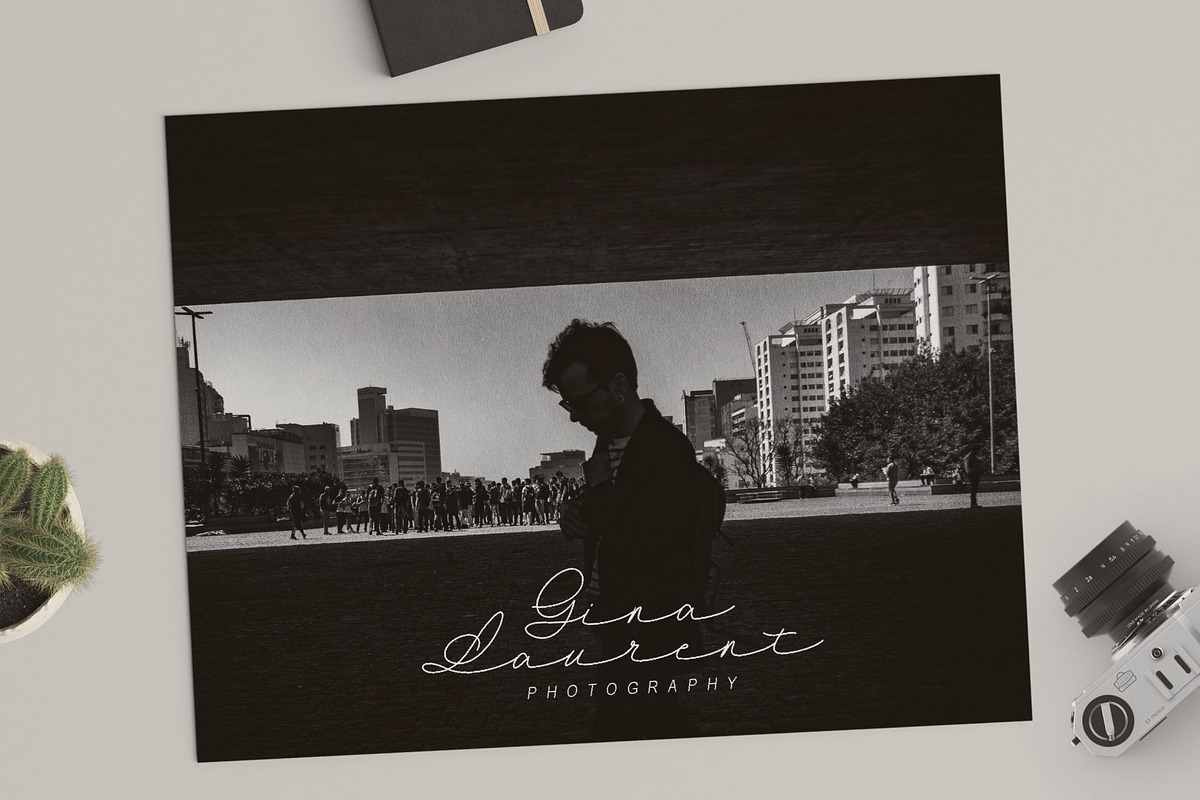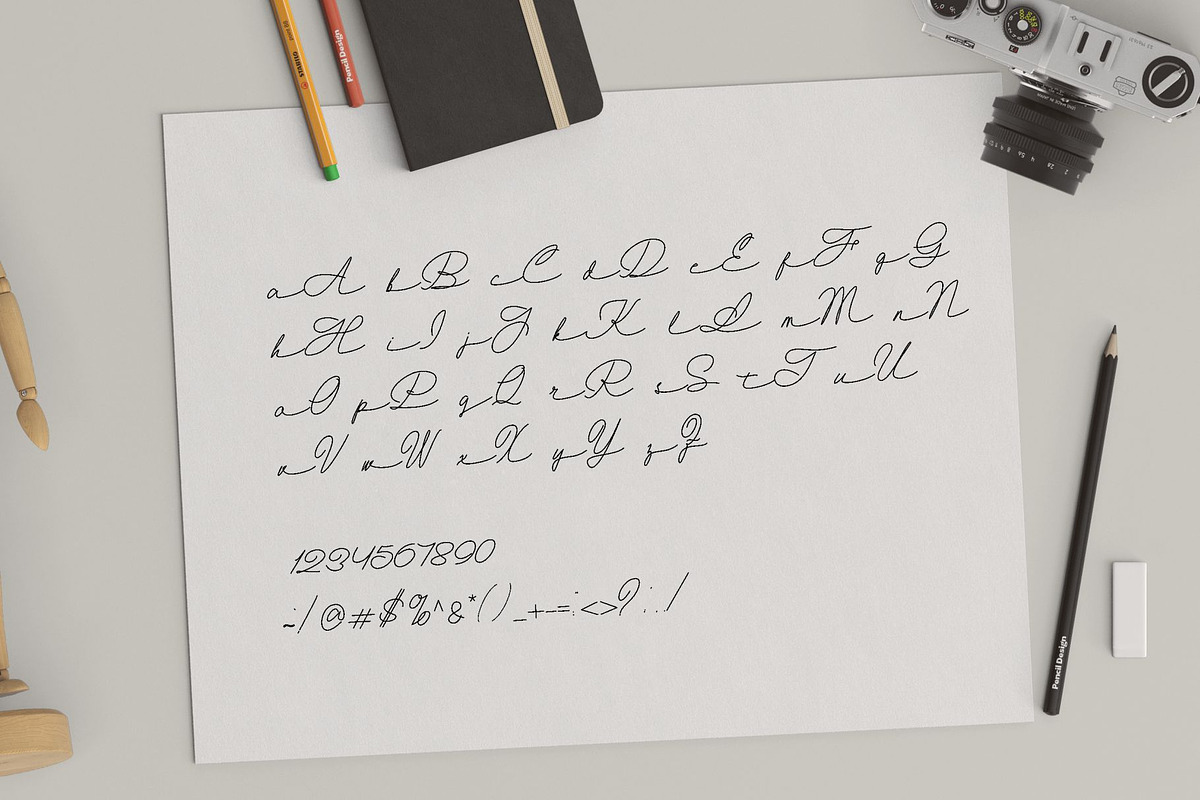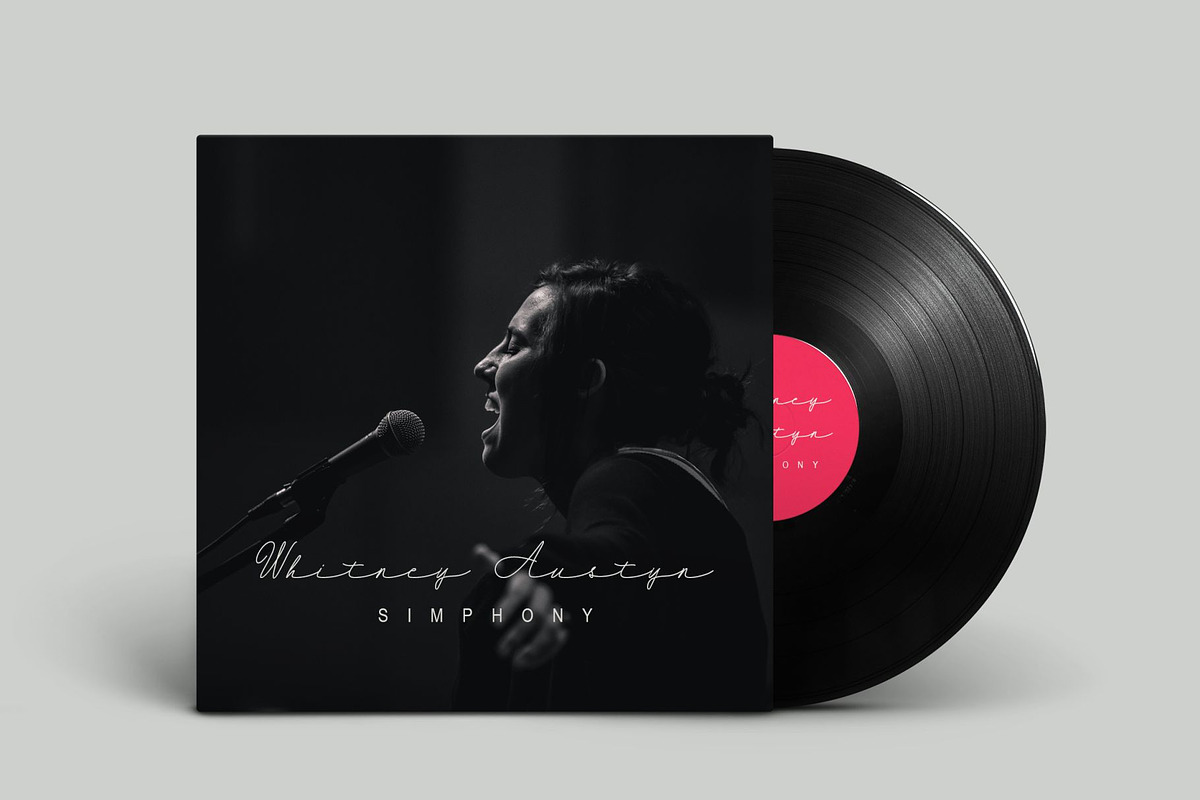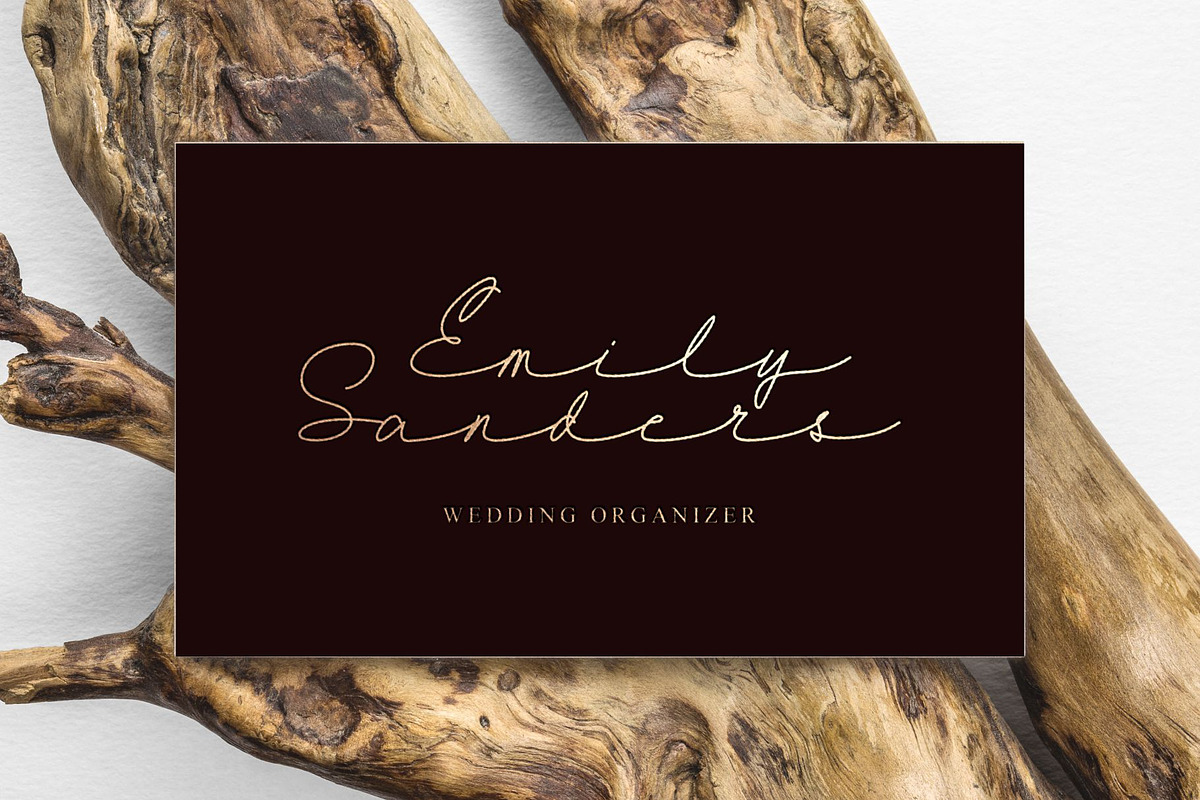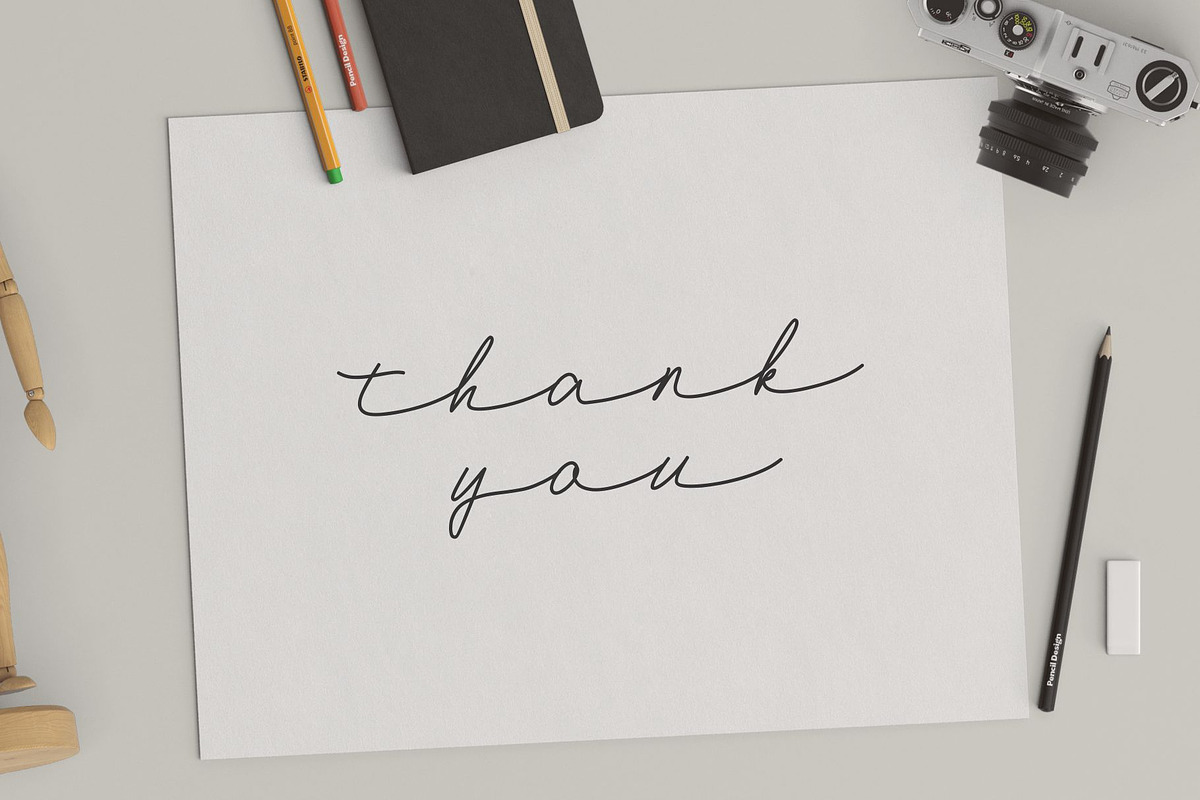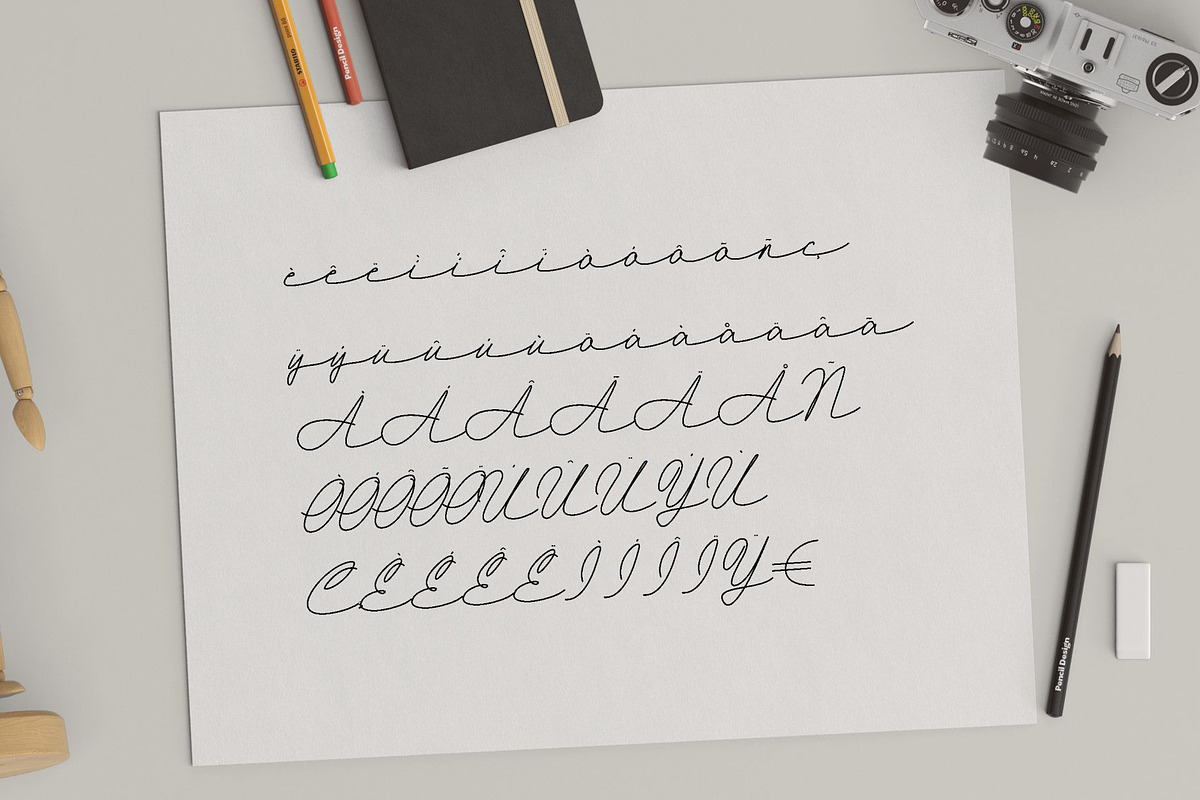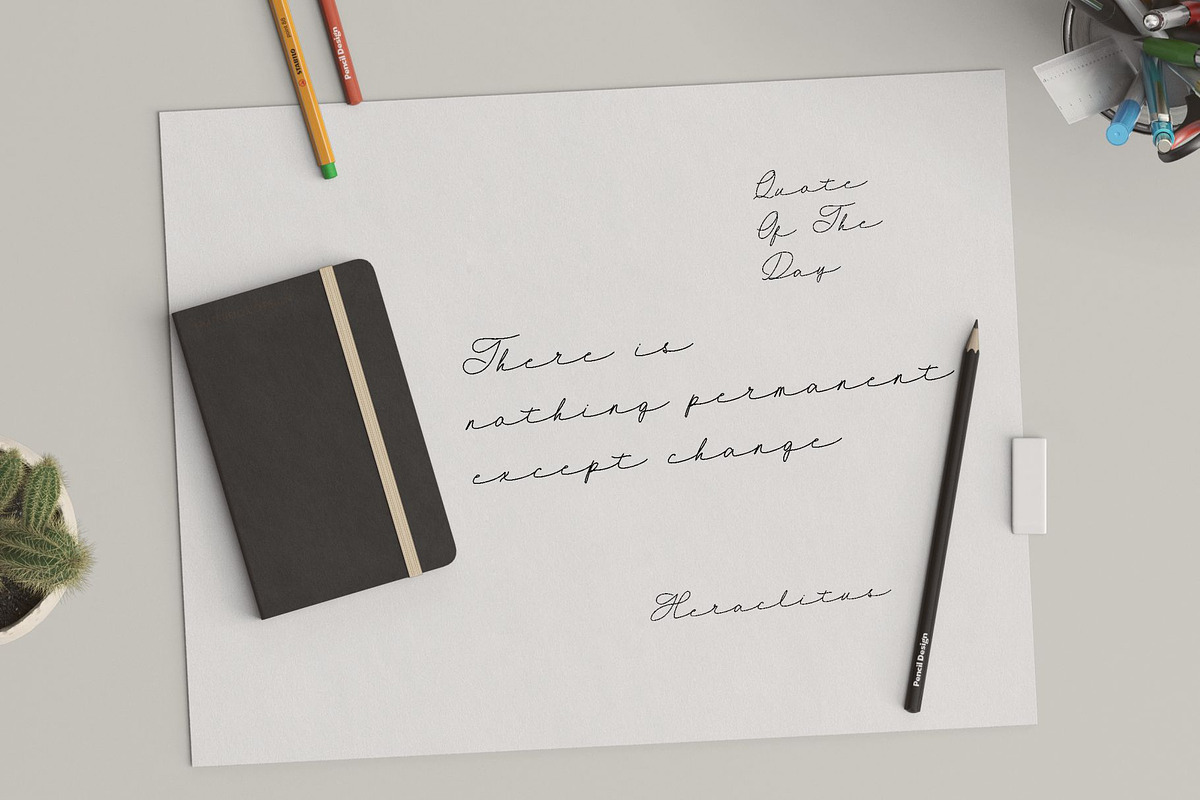
Retta hand written typeface
Introducing new typeface Retta
this hand written typeface represent beauty and tenderness that it appear to be a feminine font. It is also flowy and thin which make a perfect choice for various feminine purposes. Hence, this font will look great on wedding invitation, header, wedding organizer logo, business card, book cover and more!
Retta hand written typeface by takoliko fits naturally into Branding, posters, packaging, typography.